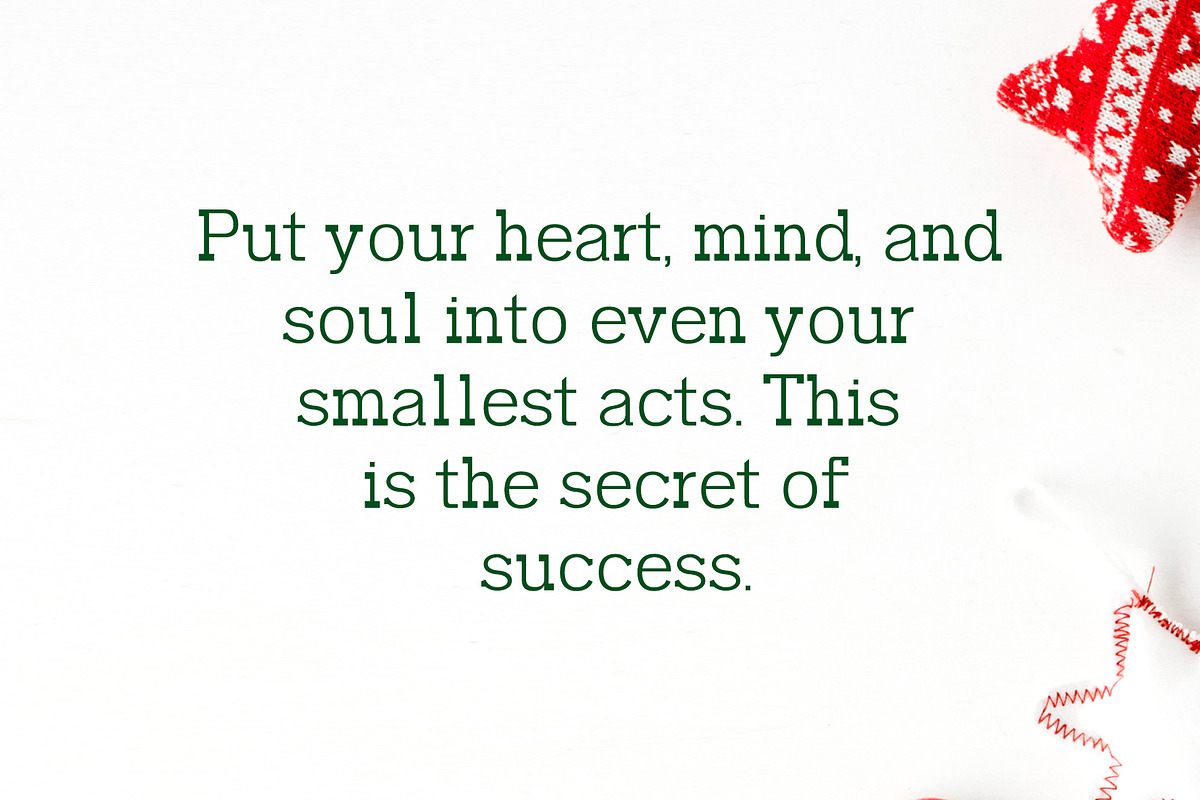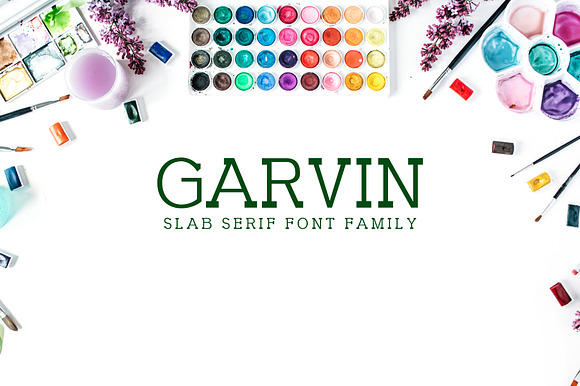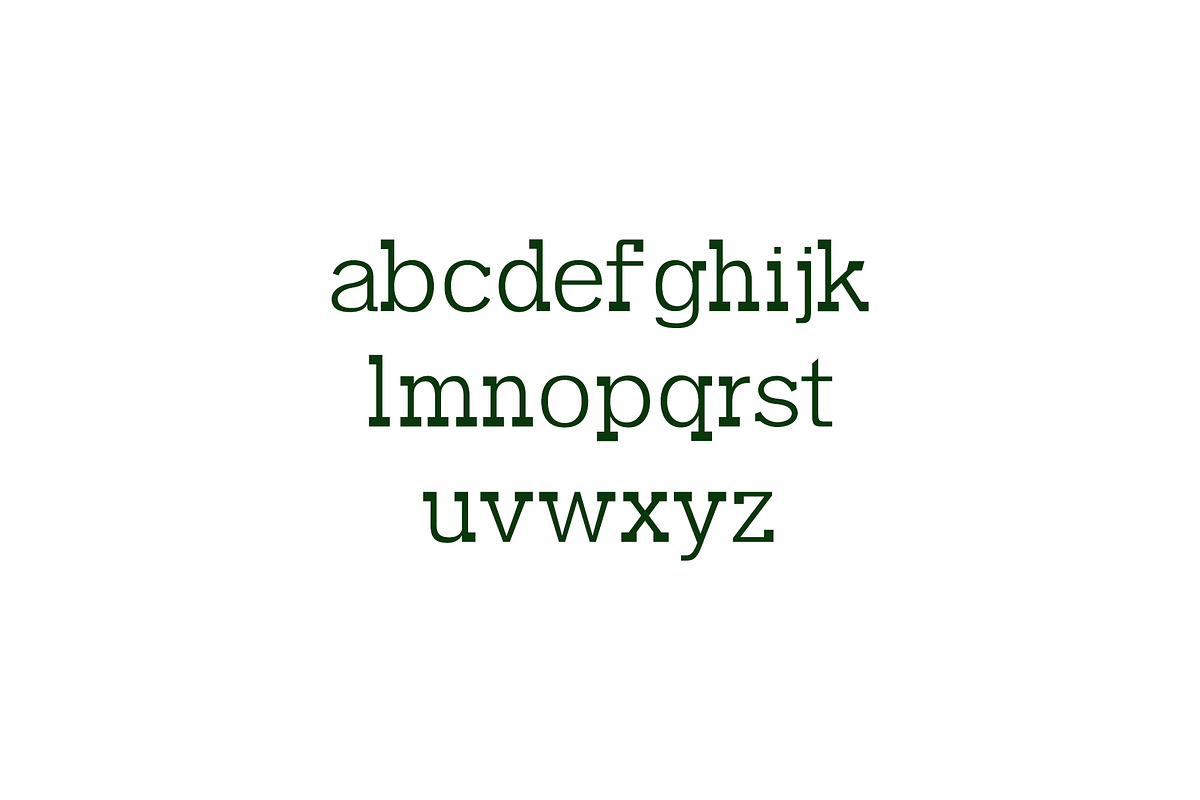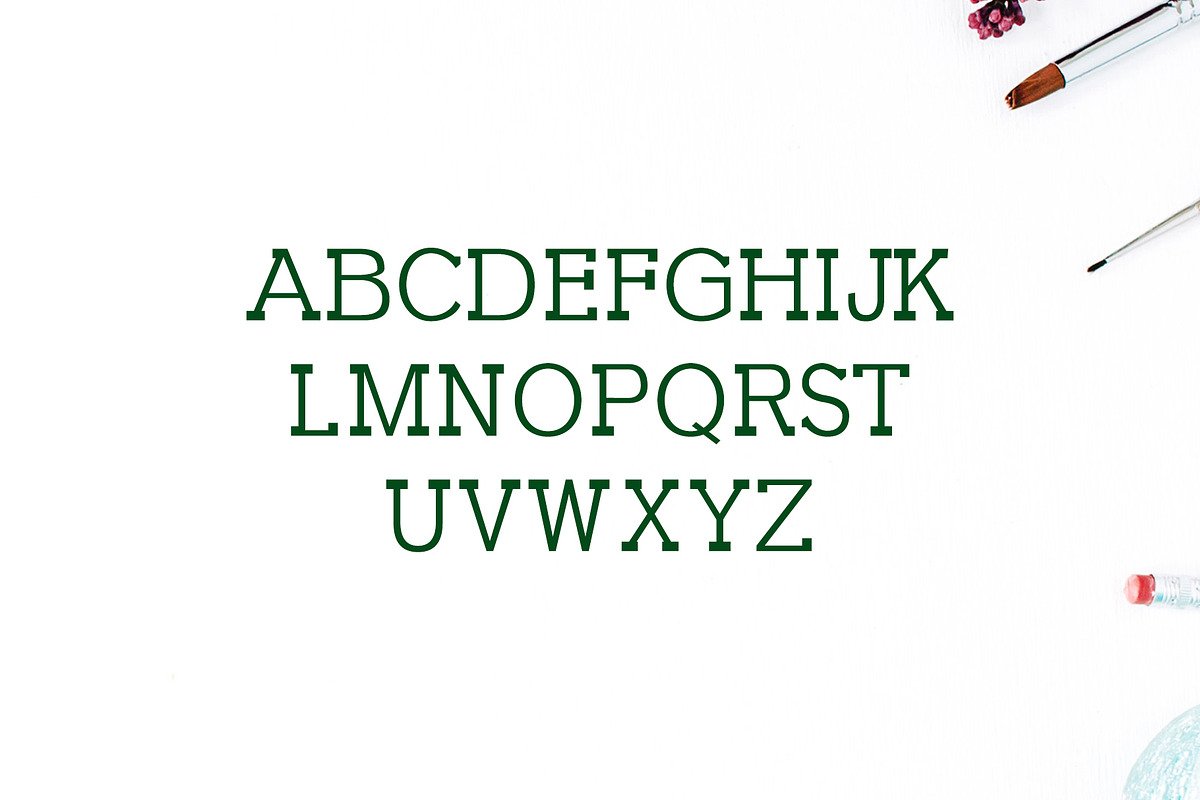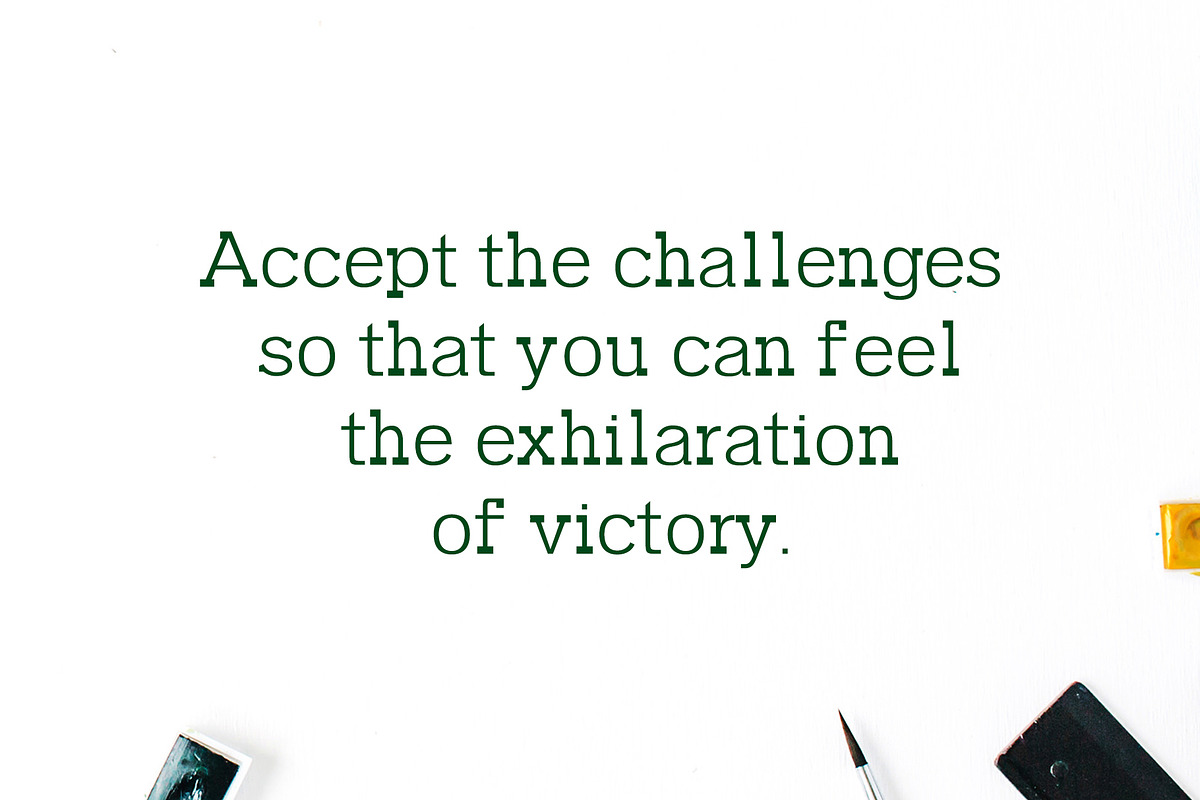
Garvin Slab Serif Font Family
Garvin Slab Serif Font is a modern slab serif font family. Garvin includes uppercase, lowercase, numerals, punctuations, symbol and multi-lingual support. Well-suited for editorial projects, logotypes, posters, clean designs, logos, headlines, banners, templates, branding, packaging, logo design, website design, typography, and many more.
Regular, Medium, Outline and Bold Weights
Garvin Font Features:
- Garvin includes uppercase, lowercase, numerals, punctuations, symbol and multi-lingual support.
- Regular, Medium, Outline and Bold Weights
- Garvin Regular
- Garvin Medium
- Garvin Bold
- Garvin Outline